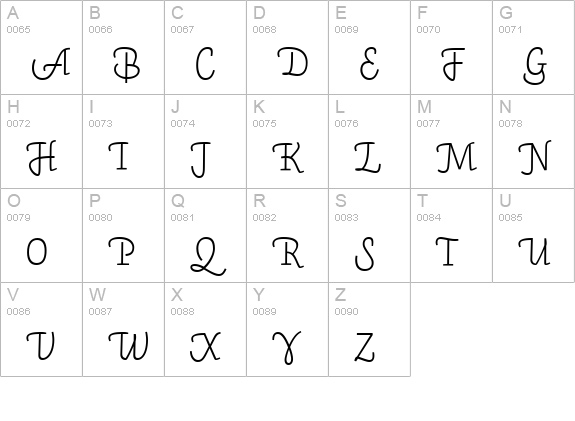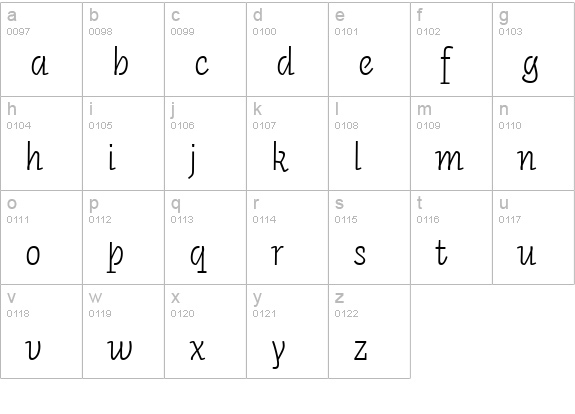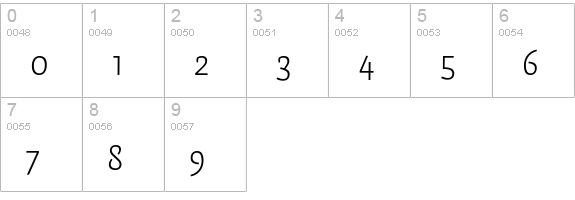
Auto 3 Light Italic Font Details
Auto 3 Light Italic is a refined, elegant, italic variant in the Auto typeface family \xE2\x80\x94 well suited to elegant body text, refined sub-headings, and luxury branding.
The Auto 3 Light Italic font is a sleek and modern typeface that exudes elegance and sophistication. Its unique italic styling adds a touch of flair to any design project, making it perfect for use in fashion, beauty, or luxury branding. The clean lines and subtle curves of this font create a sense of refinement and grace. Best of all, the Auto 3 Light Italic font is available for free download at FontsMarket.com. This means you can easily access this stylish typeface and incorporate it into your creations without any cost. Whether you're designing a logo, website, or promotional materials, the Auto 3 Light Italic font is sure to elevate your work with its timeless appeal. Download it today and add a touch of class to your designs!